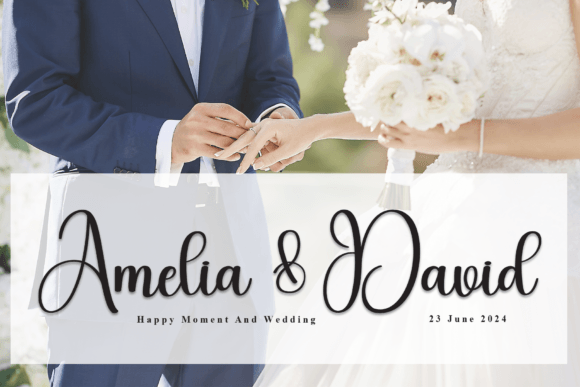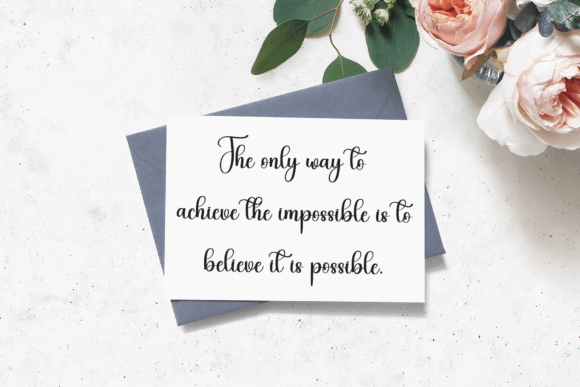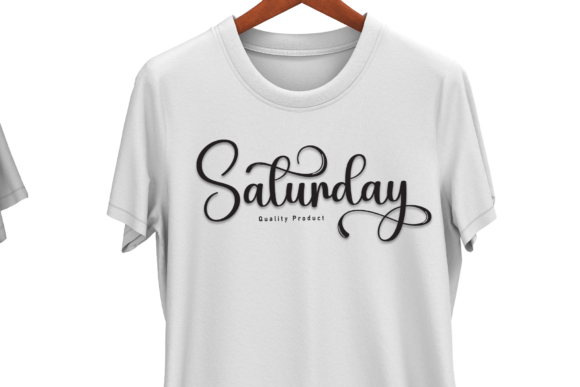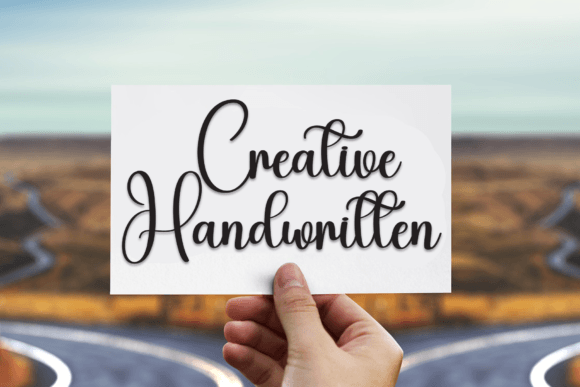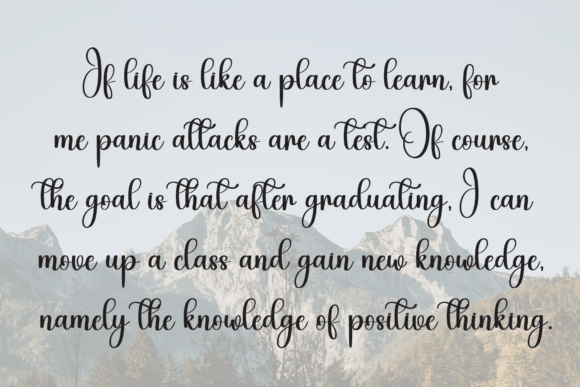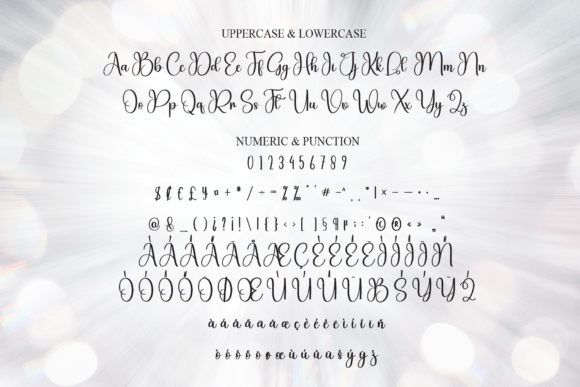
Adding a Touch of Elegance: The Power of Bright Font
Remember the thrill of discovering that perfect font for a design project? The one that elevates your work from ordinary to extraordinary? For many designers, that moment is what makes all the late nights and early mornings worth it. It’s the spark that ignites a creative fire, pushing us to new heights of innovation and style.
One such font that has captured the hearts of designers is Bright Font, a stunning handwritten script that exudes elegance and charm. Its fluid strokes and natural flow create a captivating, sophisticated look that’s perfect for adding a personal touch to invitations, branding, or social media. Whether you’re a seasoned pro or just starting out, Bright Font is a valuable asset in your design toolkit, offering a sense of warmth and creativity to any project.
Bright Font Key Features
- Unique Characteristic: Bright Font features a unique blend of modern and elegant design elements, making it suitable for both corporate and creative projects
- Font Weight: Available in 5 different weights (Light, Regular, Medium, Bold, and Black) to provide flexibility in design
Bright Font Review
Overall, I’m impressed with the Bright Font – it’s a great addition to any design project. Here’s what I think:
- The font’s high contrast ratio makes it highly legible, even at small sizes.
- The clean and modern aesthetic of the font fits well with contemporary design trends.
- The font’s versatility allows it to be used in a wide range of applications, from body text to headings.
- The font may not be suitable for projects requiring a more traditional or classic feel.
- The font’s simplicity may make it less effective for conveying complex information or tone.
- The font’s limited character set may not be sufficient for languages that require a larger character set.
I would recommend Bright Font for most design projects, especially those requiring a modern and clean aesthetic. While it may have some limitations, its versatility and legibility make it a solid choice.
Bright Font: A Practical Application Guide
Tips for Getting the Most Out of Bright Font
To get the most out of Bright Font, use it sparingly to draw attention to key elements in your design. Experiment with different font sizes and colors to create visual hierarchy and emphasis.
Bright Font is commonly used in headings, titles, and calls-to-action to draw attention and create a sense of importance. It’s also used in branding and logo design to create a unique and recognizable visual identity.
Alternatives to Bright Font
Open Sans is a clean and modern sans-serif font, suitable for digital products and web applications. It’s highly legible and readable on various devices. When to use: For general text and body content, as well as for digital signage and mobile apps.
Comparison: Open Sans is more versatile and readable than Bright Font, making it a better choice for digital products. However, it lacks the boldness and attention-grabbing quality of Bright Font.
Montserrat is a geometric sans-serif font inspired by the streets of Buenos Aires. It’s perfect for urban and modern designs. When to use: For headings, titles, and branding materials that require a strong, urban feel.
Comparison: Montserrat is more geometric and edgy than Bright Font, making it a better choice for designs that need a strong, modern look. However, it may not be as readable as Bright Font in small text sizes.
Lato is a modern sans-serif font with a friendly and approachable feel. It’s suitable for various design projects, from branding to digital products. When to use: For general text, headings, and titles that require a clean and modern look.